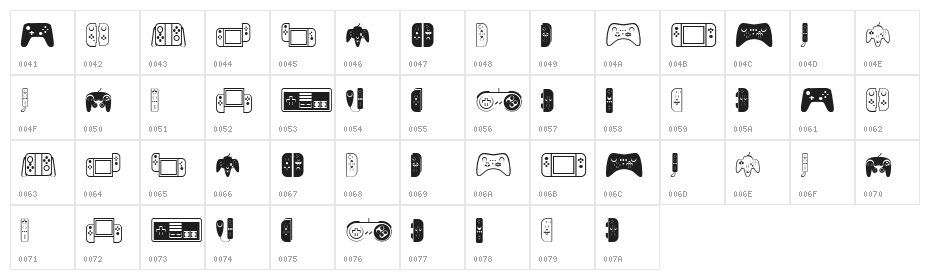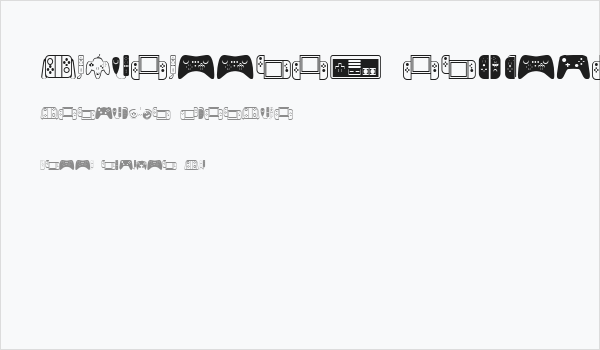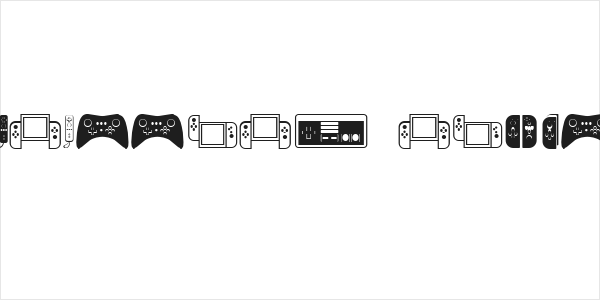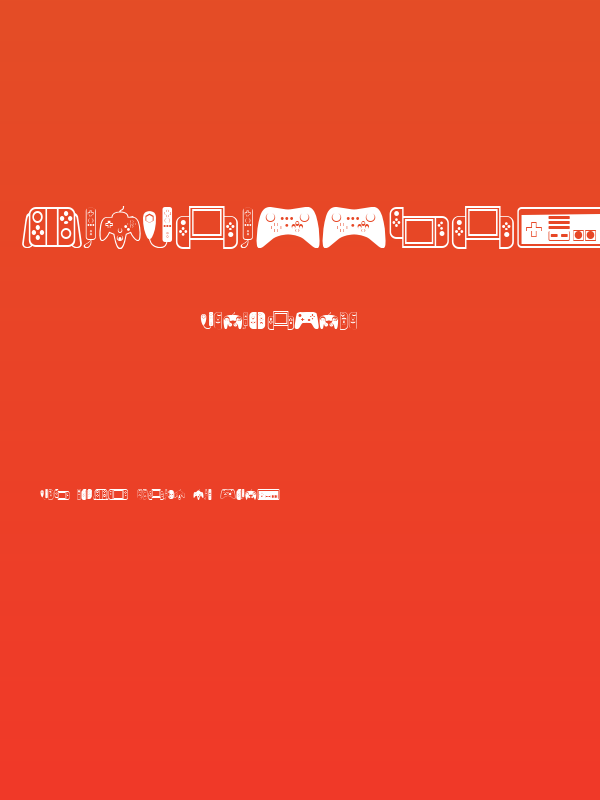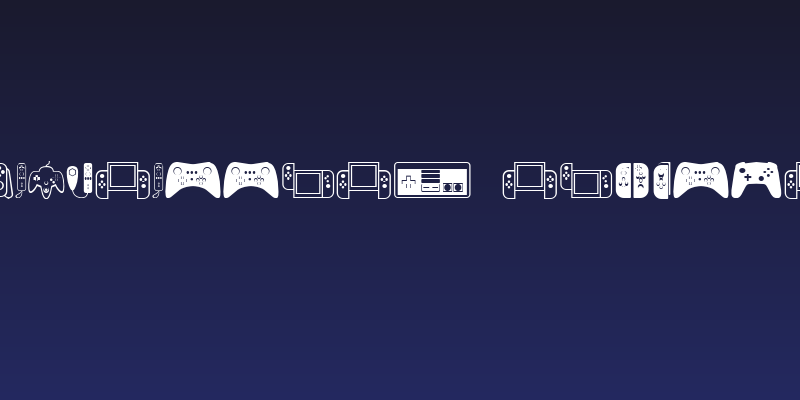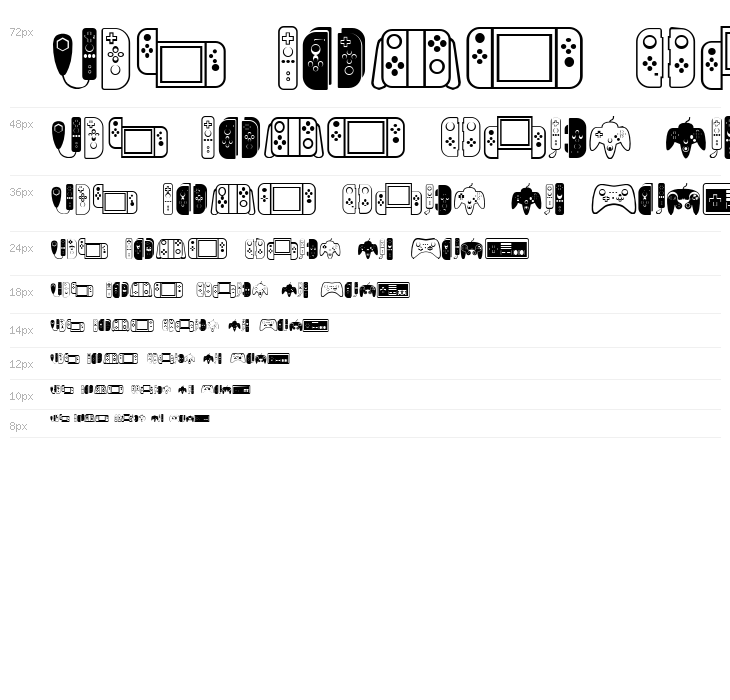
Controllers Regular Font
Controllers Regular Description
A playful decorative font composed entirely of various video game controller illustrations, featuring both modern and retro designs in black and white outlines. Each character is represented by a unique controller, creating a visually engaging and thematic alphabet.
| Overall Style | Playful, Modern, Thematic, Decorative |
| Use Case | Headlines, Logos, Posters, Themed graphics |
| Proposed Projects | Gaming event posters, youth-oriented branding, themed party invitations, tech blogs, merchandise for gamers. |